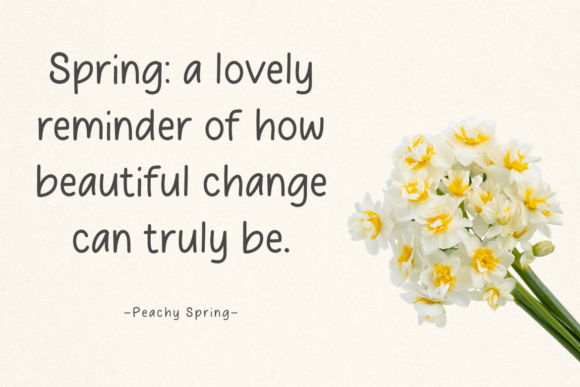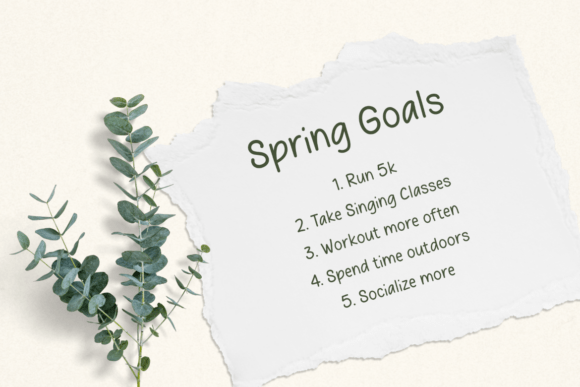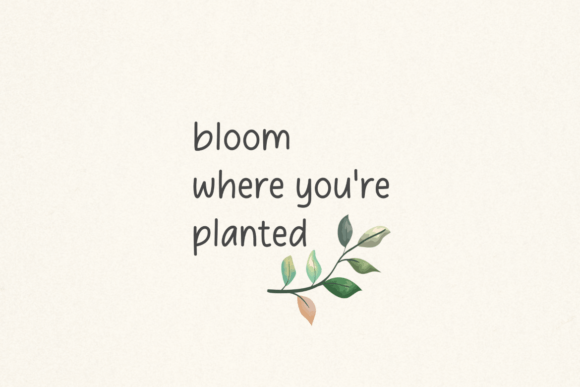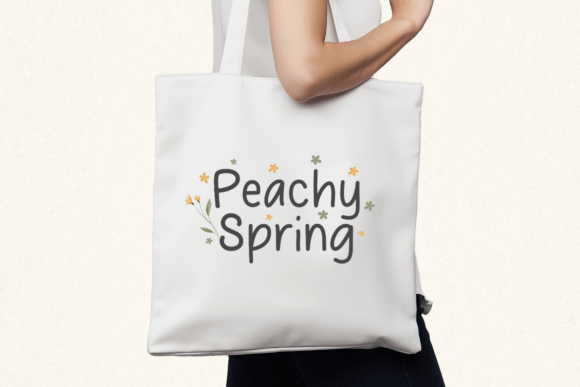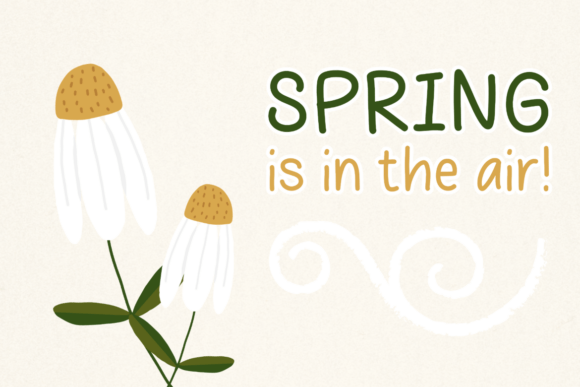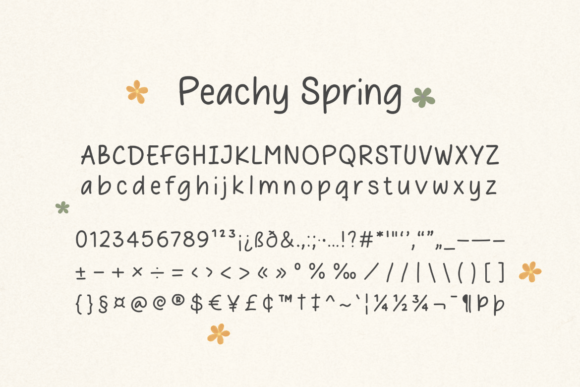
Introduction to Peachy Spring Font Font
Fonts play a crucial role in design, and the Peachy Spring Font font is a typeface that brings both character and versatility to any project. Whether you’re working on a branding project, a website, or a print design, the Peachy Spring Font font offers a unique style that can elevate your work.
Welcome the fresh breeze of spring with Peachy Spring, a delightful handwritten font that radiates warmth and whimsy.
With its playful curves and natural flow, this font is perfect for adding a touch of joy to your projects—whether you’re crafting invitations, branding, or heartfelt quotes Peachy Spring brings an effortless charm to any design.
Key Features of Peachy Spring Font Font
Why Choose Peachy Spring Font Font?
The Peachy Spring Font font is more than just a typeface – it’s a design tool that helps you communicate your message with style and clarity. Its unique character set and versatile design make it suitable for a wide range of applications, from elegant invitations to bold headlines.
With its carefully crafted letterforms and balanced proportions, the Peachy Spring Font font ensures readability and visual appeal across all mediums.
What makes Peachy Spring Font font special?
The Peachy Spring Font font stands out with its unique design, exceptional readability, and versatility across various design applications.